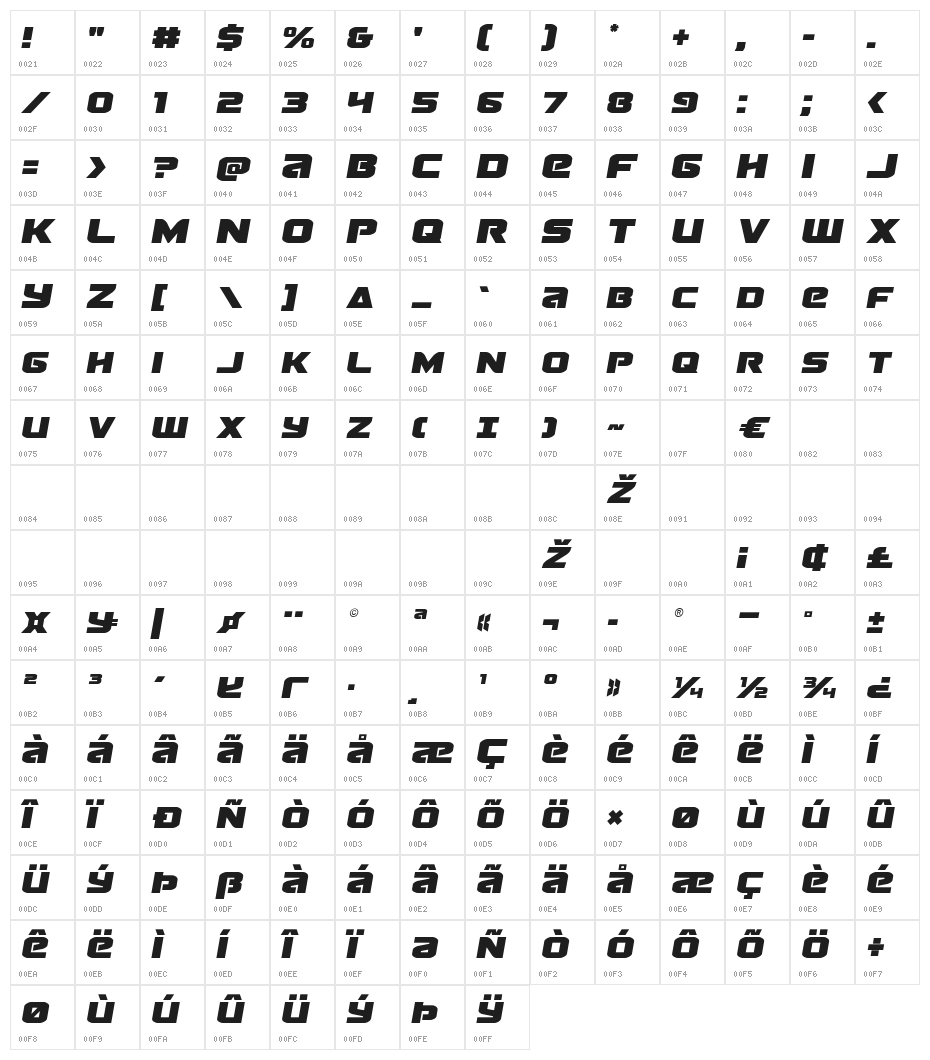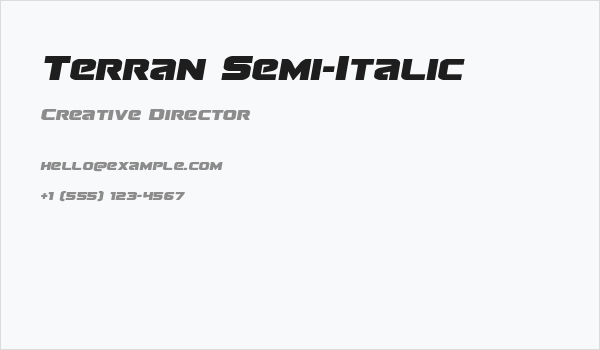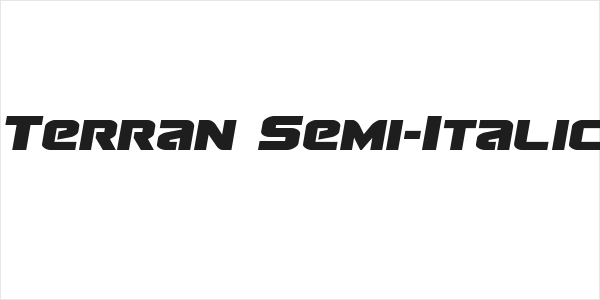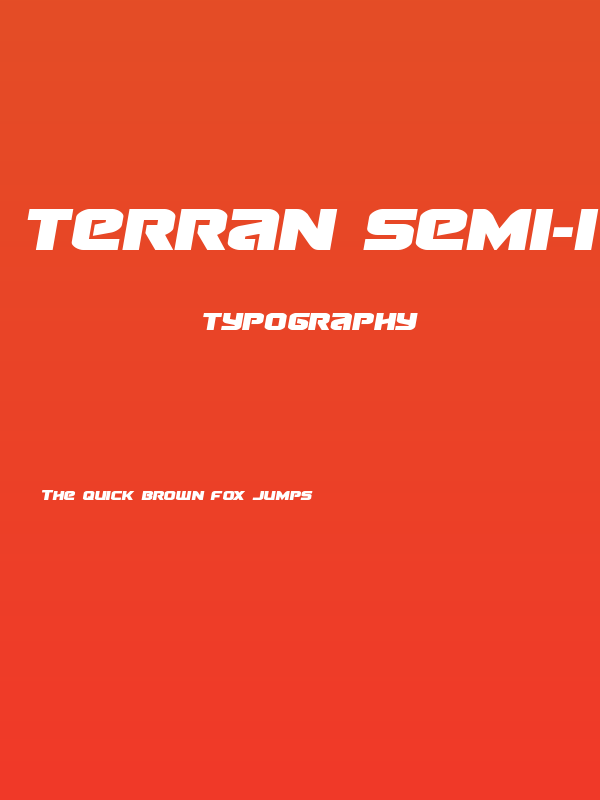
Terran Semi-Italic Font
Terran Semi-Italic Description
This font features a bold and dynamic style with a semi-italic slant, giving it a sense of motion and energy. The characters are robust and angular, with a futuristic and sporty aesthetic. The uppercase and lowercase letters maintain a consistent design, emphasizing sharp edges and a slightly condensed form. Numbers and special characters are designed to match the boldness and angularity of the alphabet, ensuring a cohesive look across all elements. This font is ideal for projects that require a modern and energetic feel, such as sports branding, technology-related designs, or dynamic advertising.
Use CaseLogos, Headlines, Branding
Proposed ProjectsIdeal for sports branding, tech designs, dynamic advertising, and modern logos.